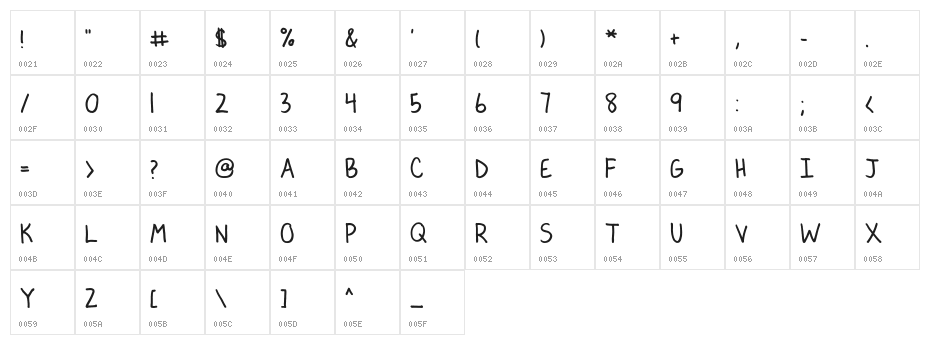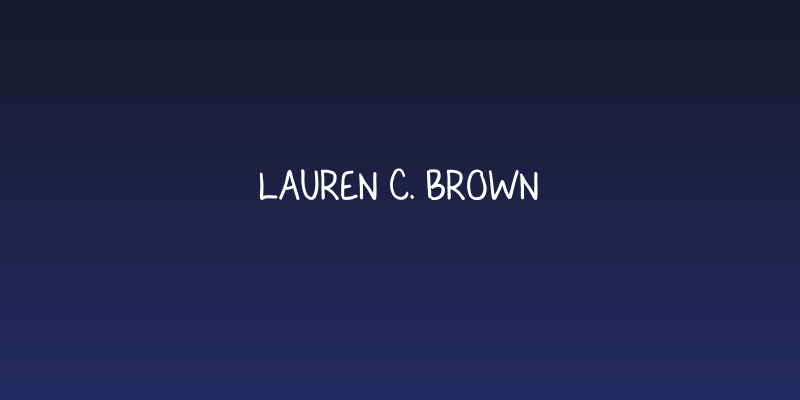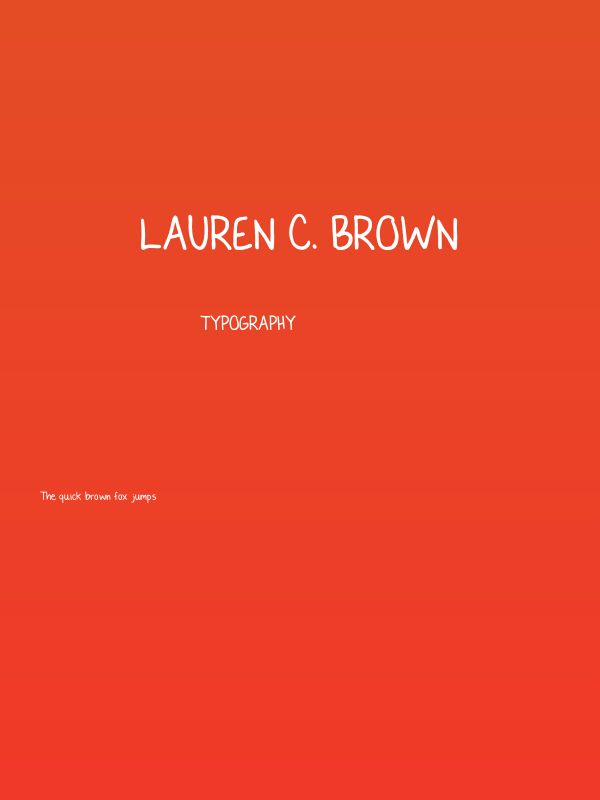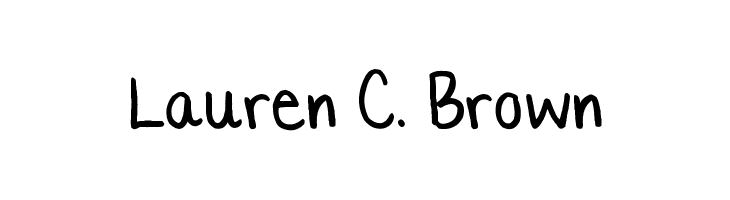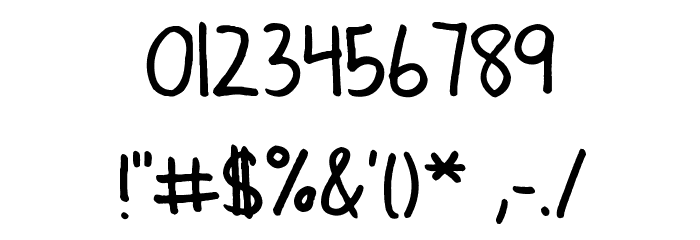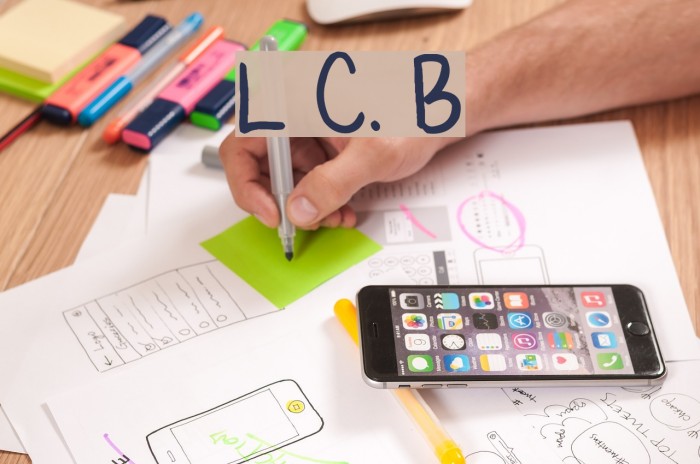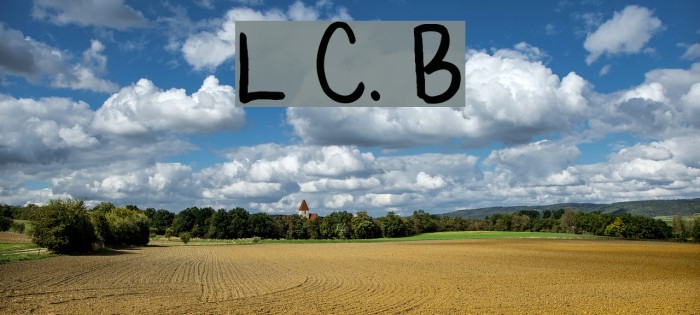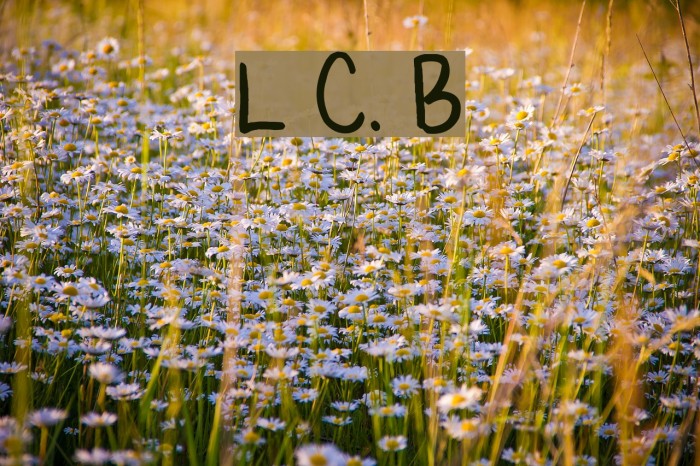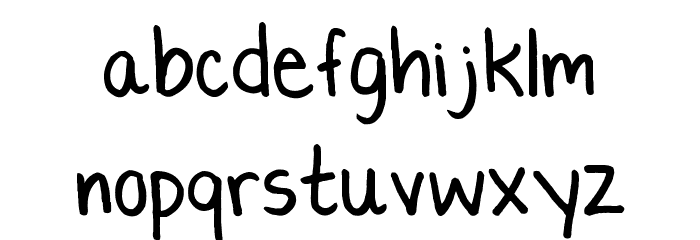
Lauren C. Brown Font
Lauren C. Brown Description
This font exudes a casual and friendly handwritten style, characterized by its playful and slightly irregular strokes. The letters have a natural flow, mimicking the appearance of handwriting with a touch of whimsy. The uppercase and lowercase letters are well-balanced, with a consistent stroke width that adds to its readability. The numbers and special characters maintain the same informal aesthetic, making the font versatile for various creative projects. Its approachable and relaxed vibe makes it suitable for designs that aim to convey warmth and personality.
| Overall Style | Casual |
| Use Case | Headlines, Informal text, Creative projects |
| Proposed Projects | Ideal for greeting cards, children's books, informal branding, and social media graphics. |